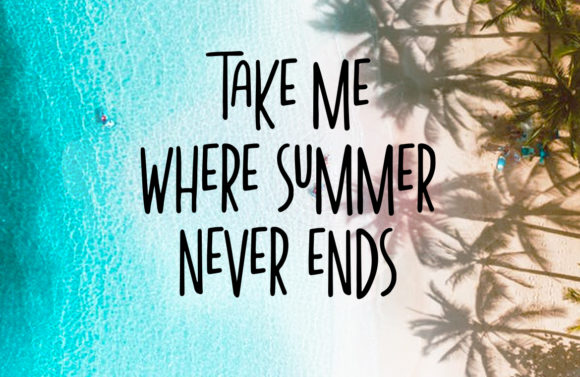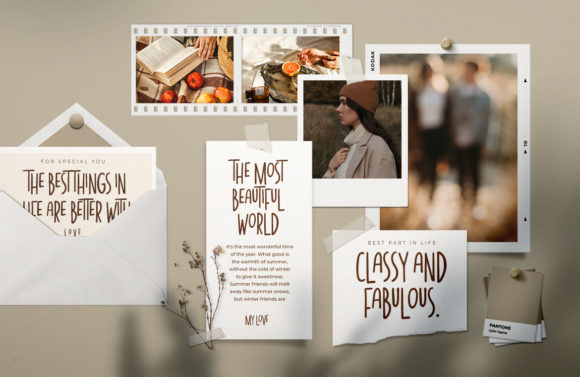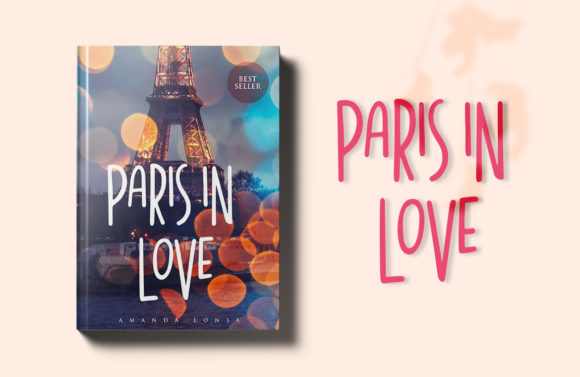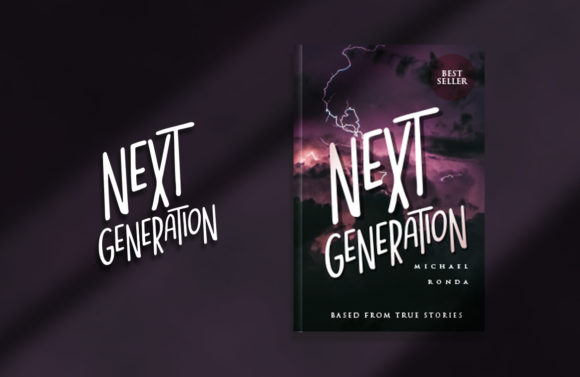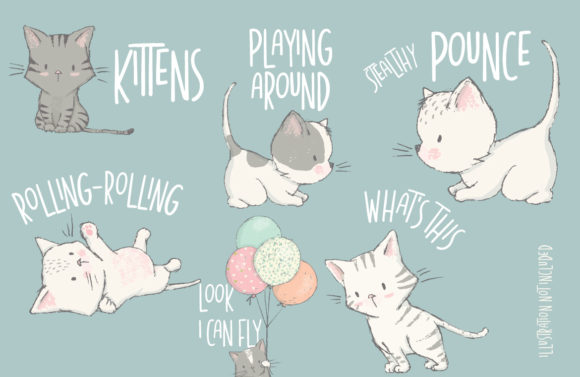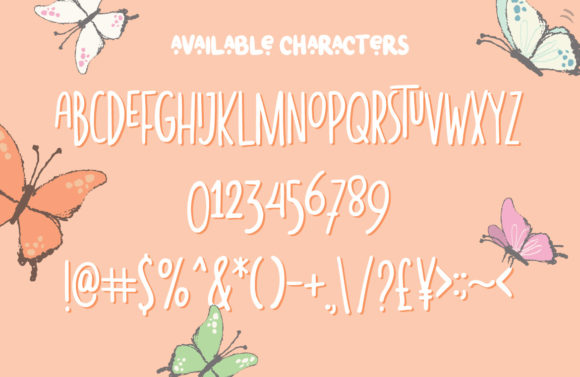
Introduction to Plowmani Font
Remember that moment when you stumbled upon the perfect font for your creative project? The one that made all the difference in bringing your vision to life? For designers, finding the right font can be a game-changer. It’s the difference between a project that’s just okay and one that truly stands out. And, if you’re looking for a font that’s not only beautiful but also easy to read, you might want to consider the Plowmani Font.
This tall and carefully handcrafted handwritten font is a design resource that’s hard to ignore. With its transparent background and high-quality design, it’s the perfect choice for any creative project. Whether you’re working on a website, social media post, book cover, or logo, the Plowmani Font is sure to impress. And the best part? It’s available for free download, making it an accessible choice for designers of all levels.
So, what makes the Plowmani Font so valuable for designers? For one, its easy-to-read characters make it a versatile choice for any project. And with its fun and playful vibe, it’s sure to add a touch of personality to your designs. Whether you’re a seasoned pro or just starting out, the Plowmani Font is definitely worth checking out.
Key Features of Plowmani Font
- Unique characteristics include a bold, modern aesthetic and a versatile font style suitable for headings and body text.
- Designed to be highly legible, even at small font sizes, making it perfect for digital designs and presentations.
Honest Review: Plowmani Font
As a designer, I’m always on the lookout for high-quality design resources to enhance my creative projects. The Plowmani Font is one such find that caught my attention. At first glance, I was impressed by its clean and modern aesthetic.
What works well with the Plowmani Font is its versatility. It’s a great choice for headings and body text alike, and its transparent background makes it perfect for layering over images or other design elements. I also appreciate the fact that it’s a free download, making it an excellent addition to any design project.
The font’s simplicity is both its strength and weakness. While it’s a great choice for minimalistic designs, it may not be the best fit for more complex or ornate projects. ⚠️ Limited character sets and font sizes may also be a limitation for some users.
Overall, I’m impressed with the Plowmani Font. It’s a solid addition to any designer’s toolkit, and its free download makes it an excellent choice for beginners or those on a budget. Whether you’re working on a personal project or a commercial design, the Plowmani Font is definitely worth considering. ✨
- Great for minimalistic and modern designs